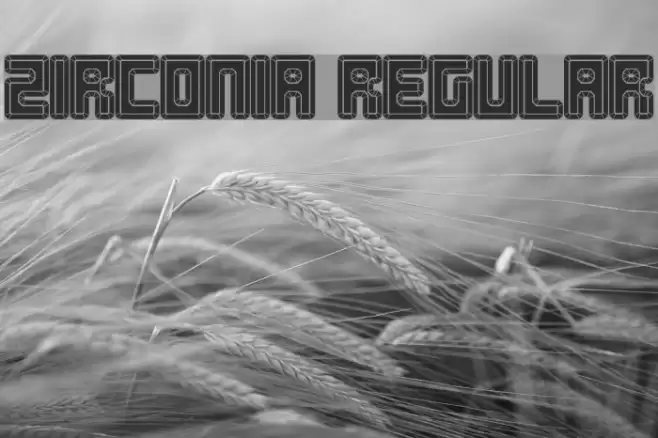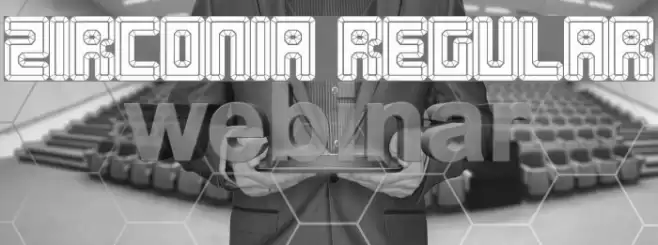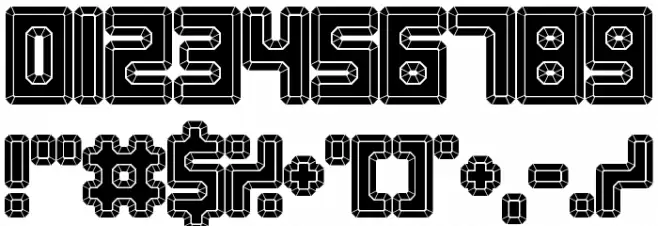
Zirconia Regular Font
Zirconia Regular Description
This font features a bold, geometric design with a futuristic and industrial feel. Each character is constructed with thick, block-like strokes and sharp angles, creating a sense of strength and modernity. The letters are outlined with a distinct border, adding depth and a three-dimensional effect. The overall appearance is highly decorative, making it suitable for attention-grabbing designs. The font includes uppercase and lowercase letters, numbers, and a variety of special characters, all maintaining the same bold and structured style.
A bold, geometric font with a futuristic and industrial design from Uncategorized fonts.
- Proposed Projects: Ideal for sci-fi themed projects, video game titles, posters, and branding that requires a modern, industrial look.
- Overall Style: Futuristic, Industrial